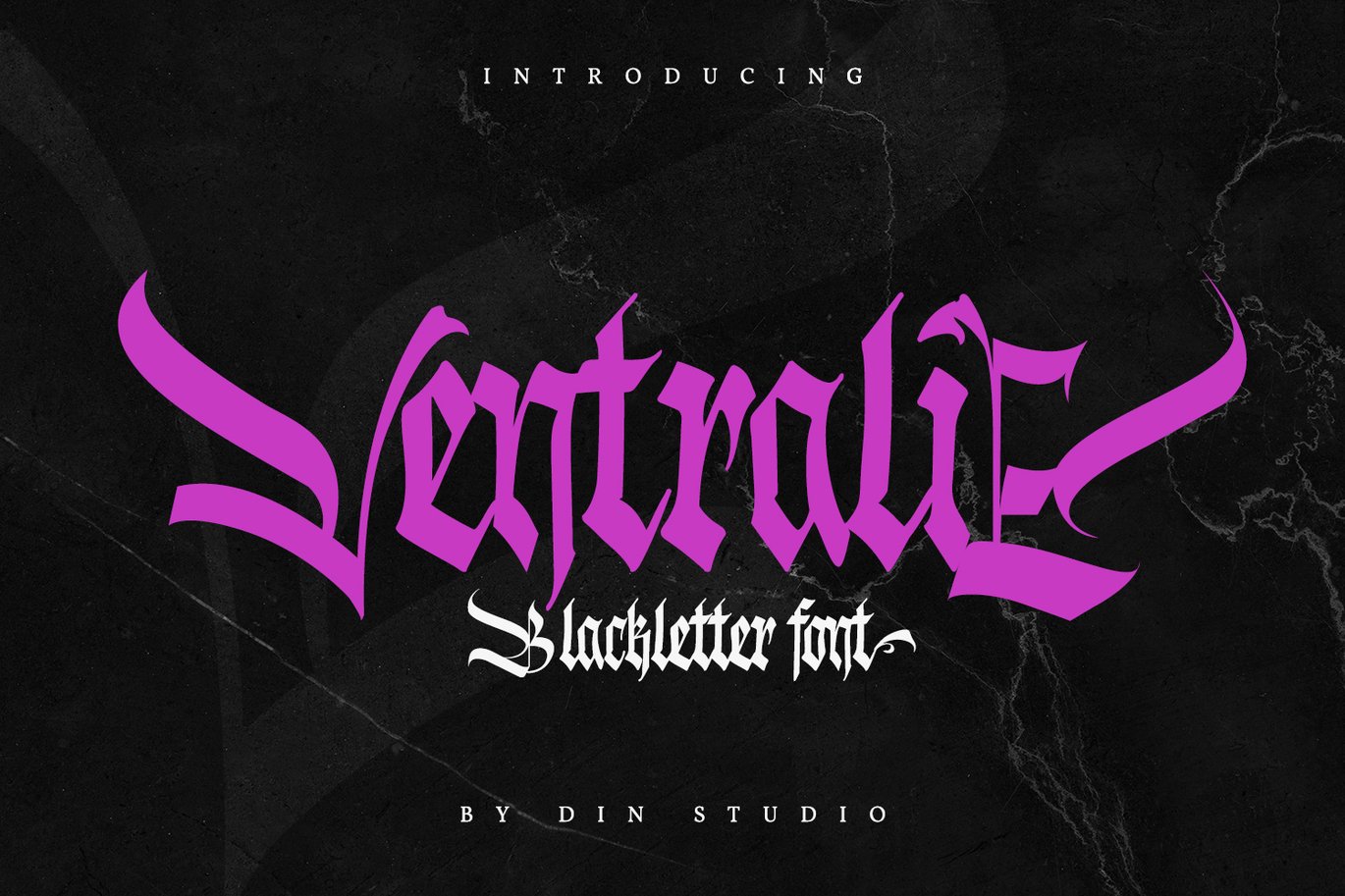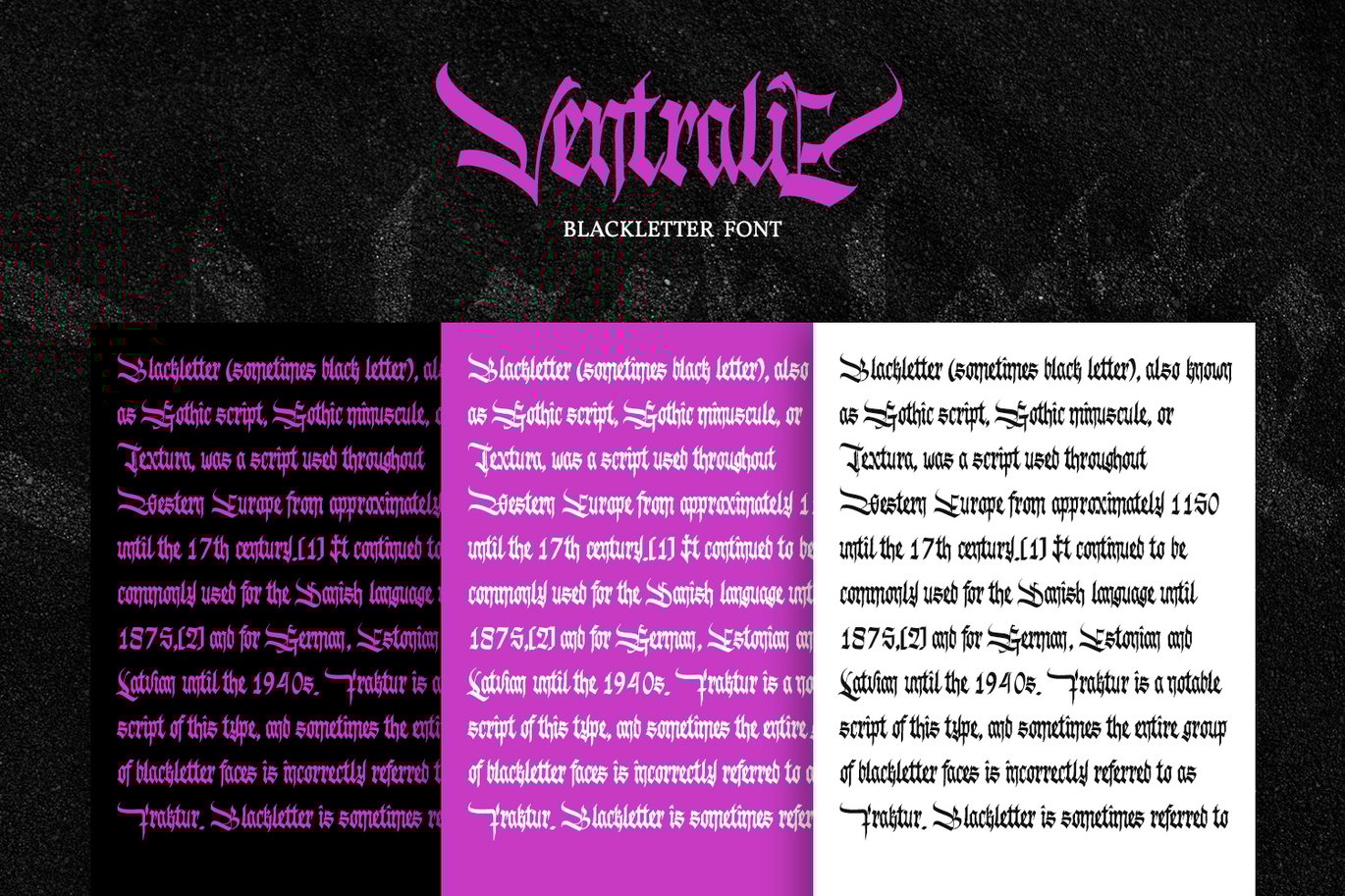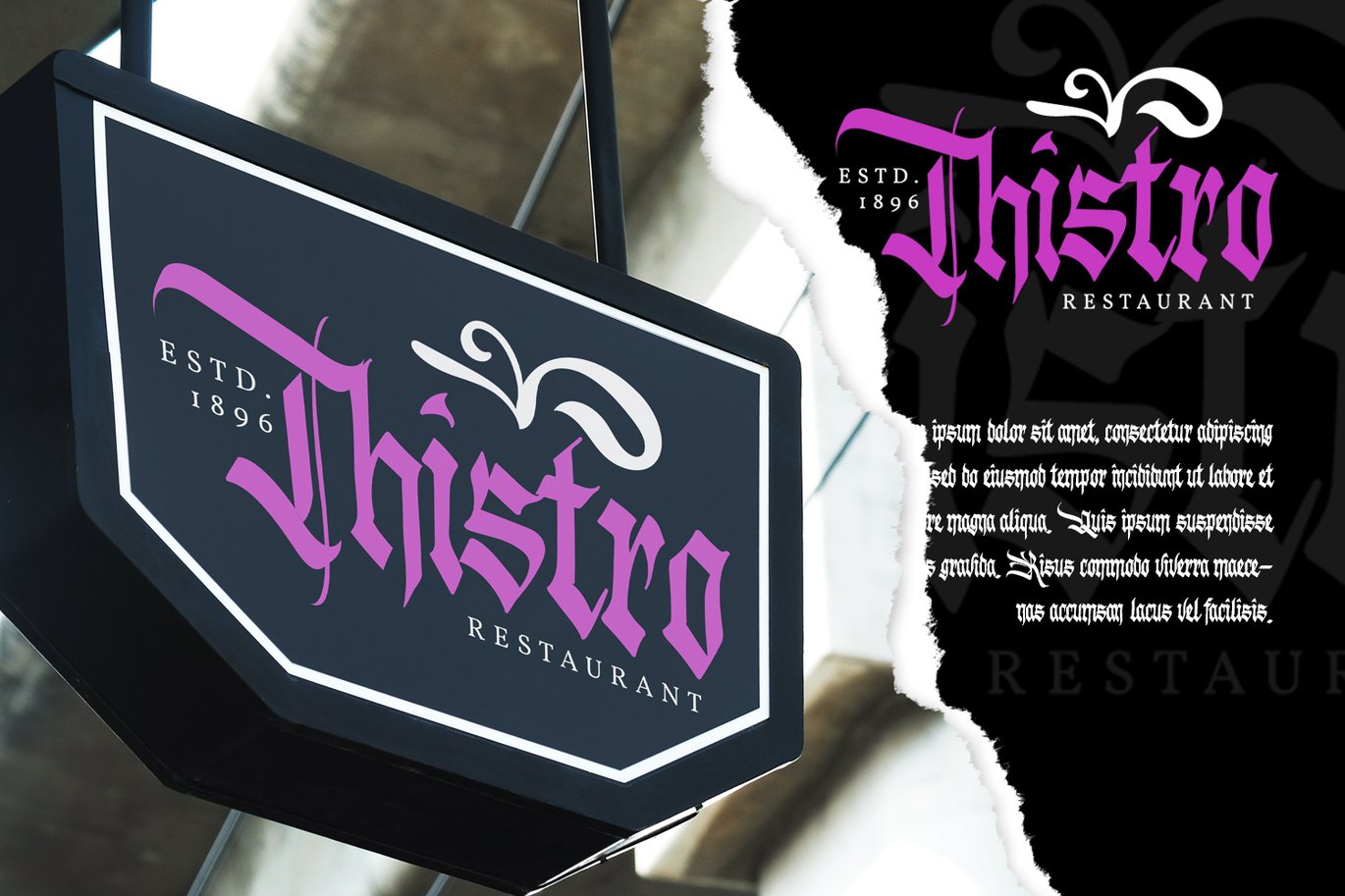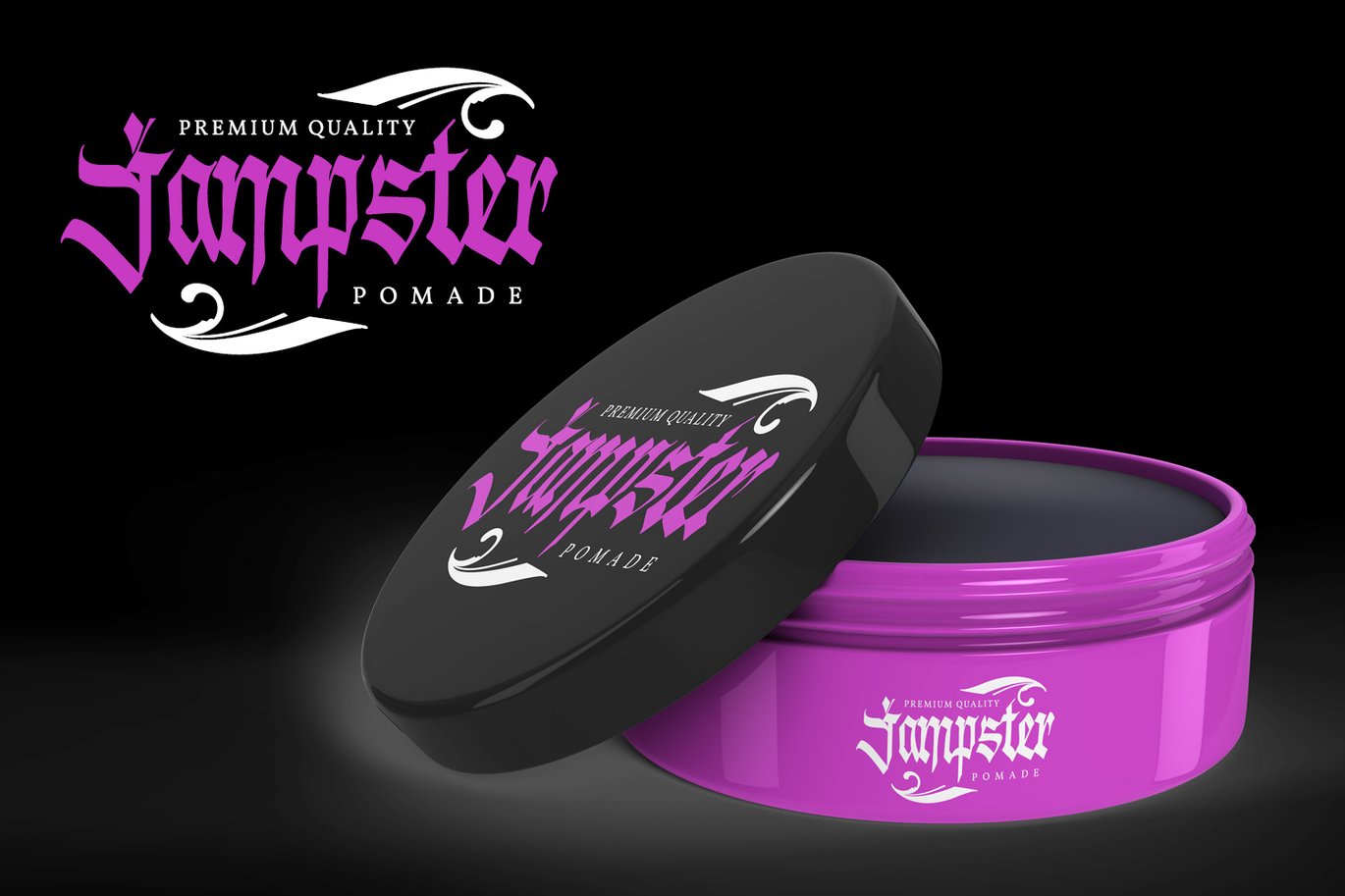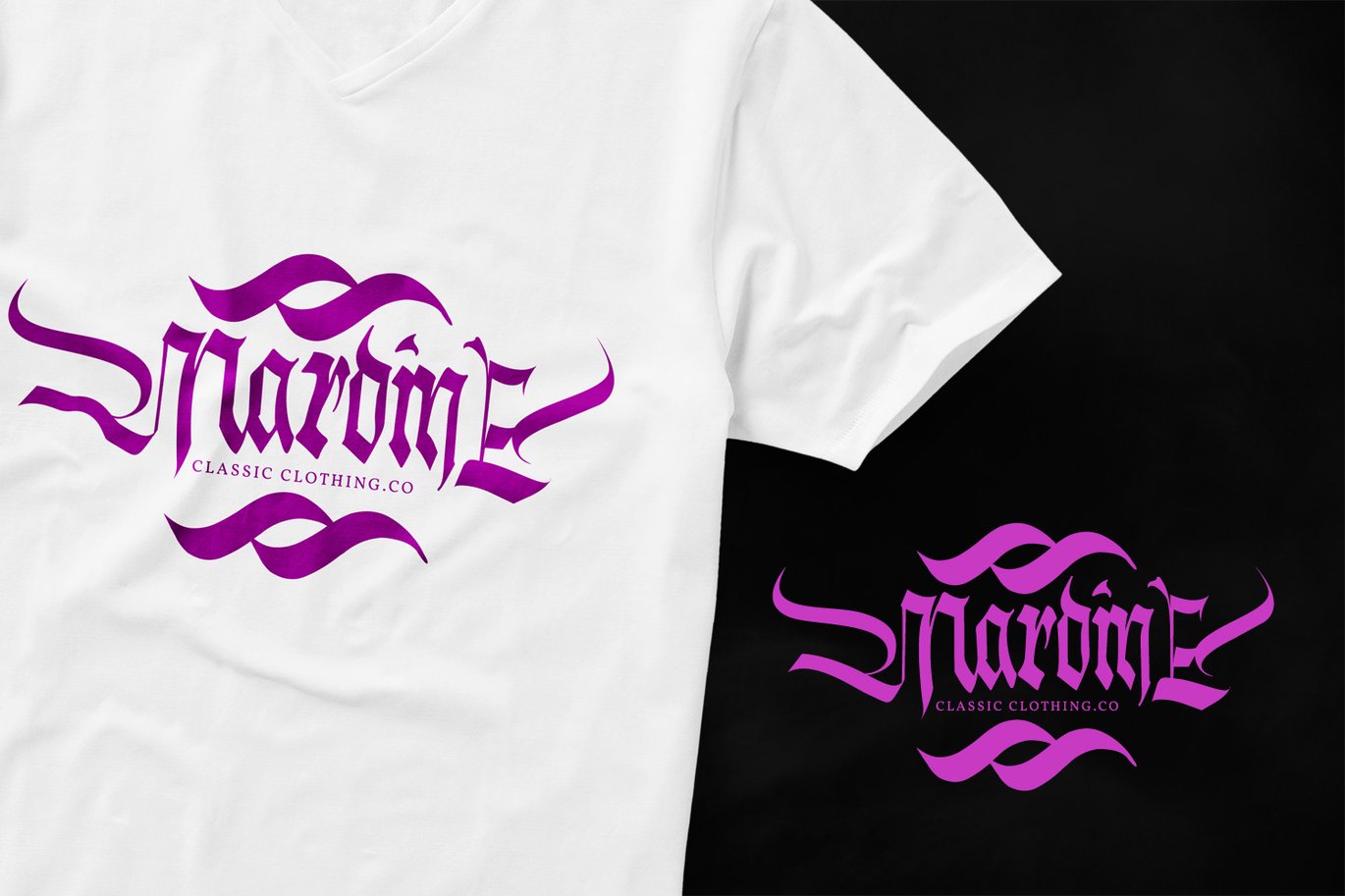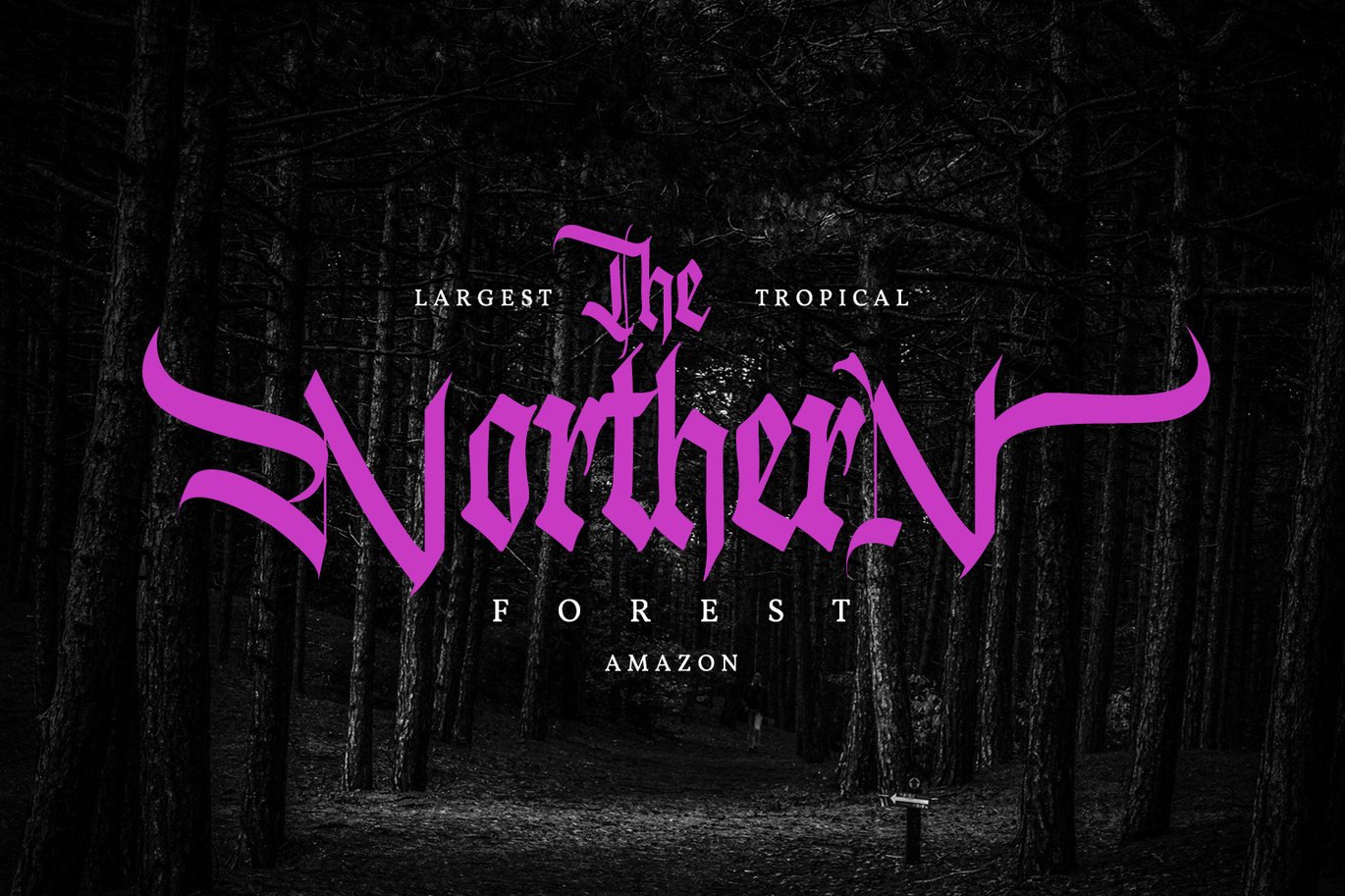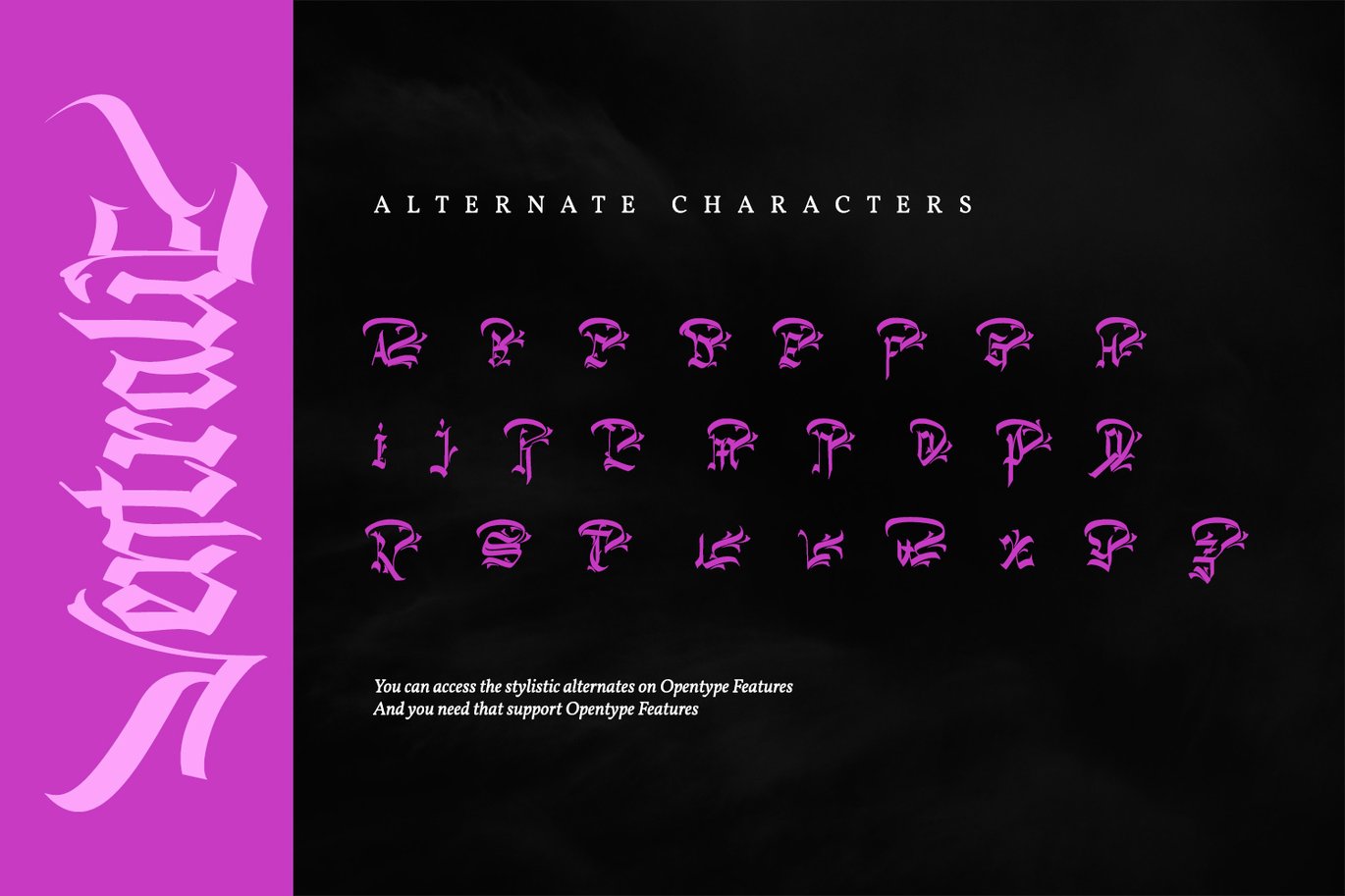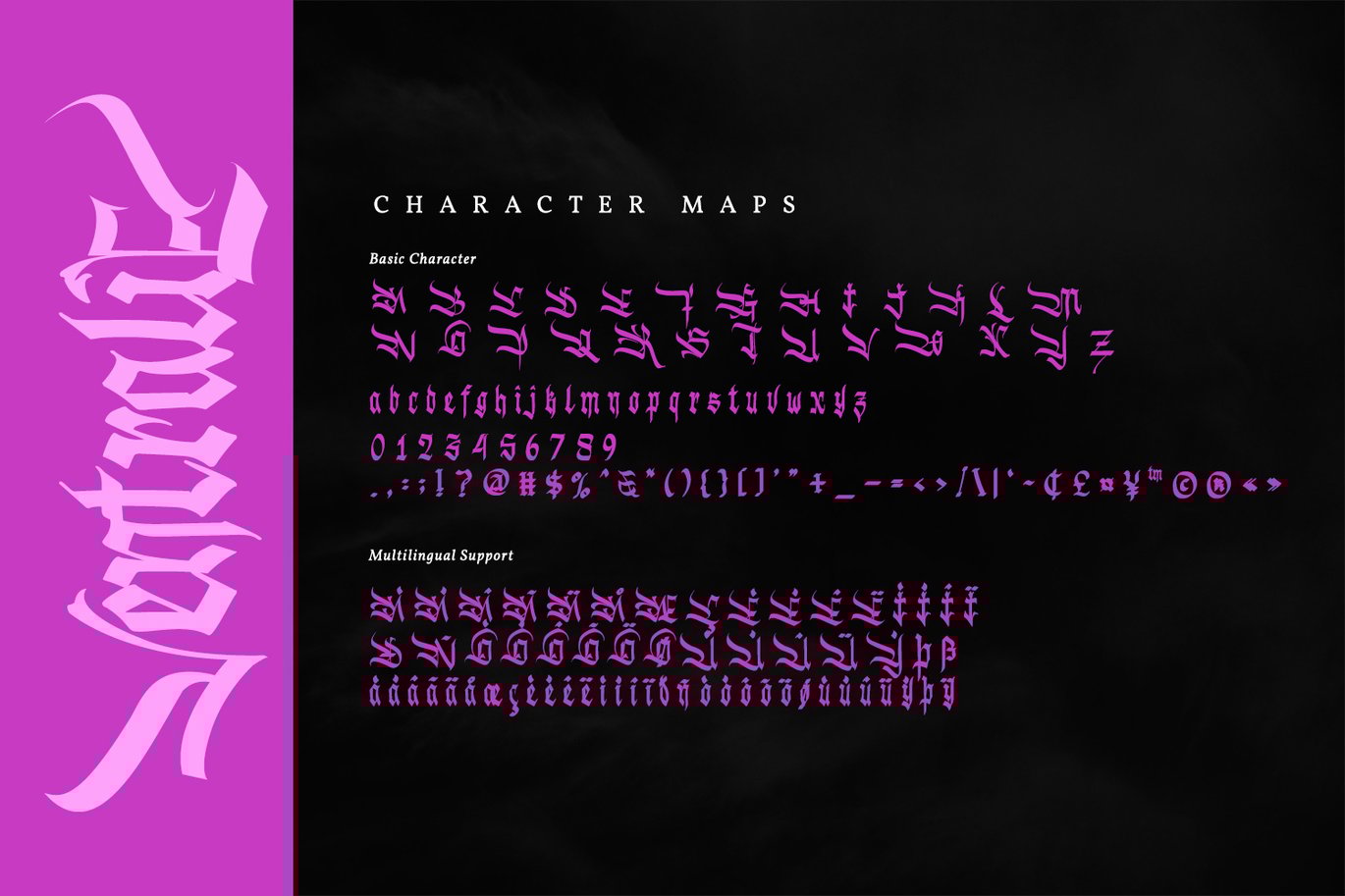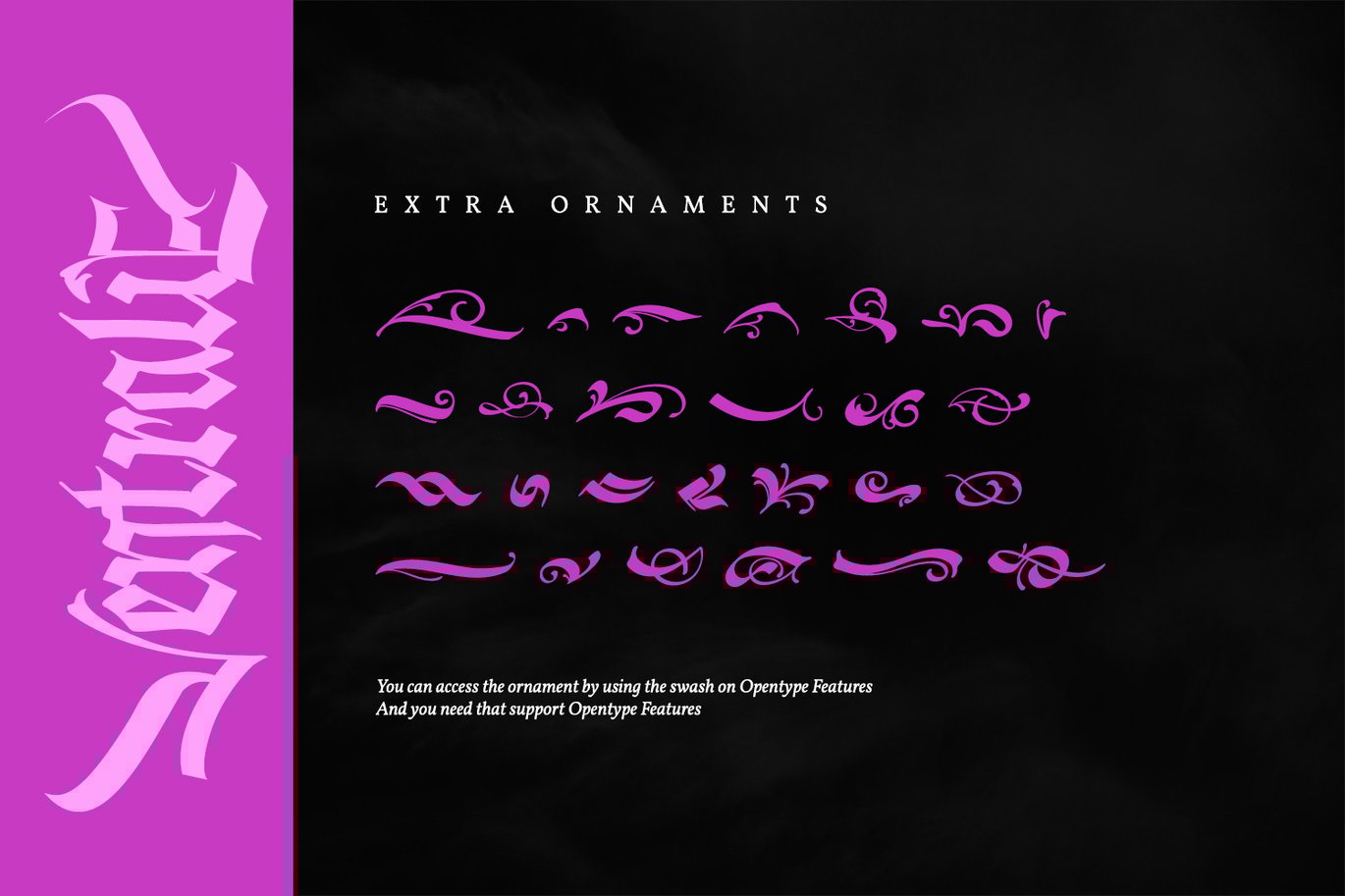
Ventralie-Blackletter Font
Ventralie is authentic and modern blackletter font. The font is suitable for any branding project like logo, t-shirt printing and many more. Outstanding in a wide range of contexts.
- Accents (Multilingual characters)
- Extra Ornaments